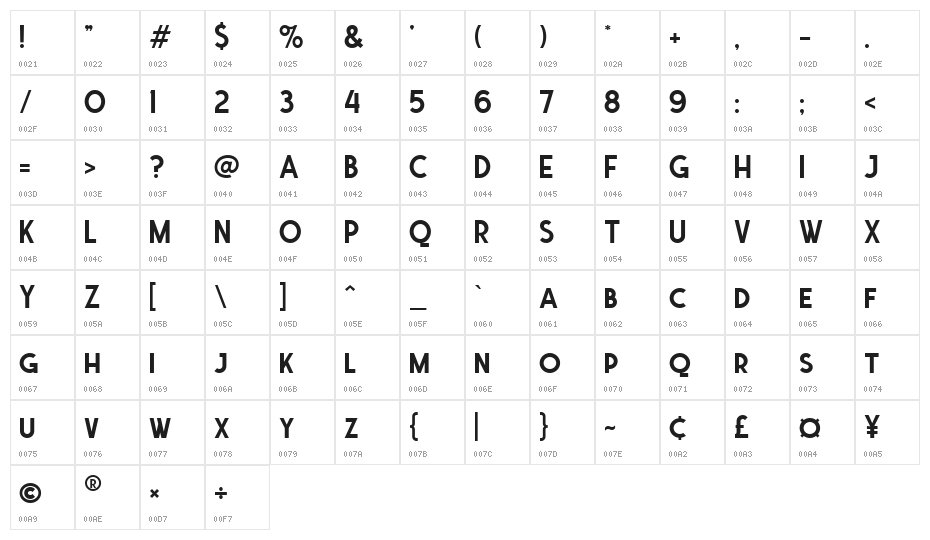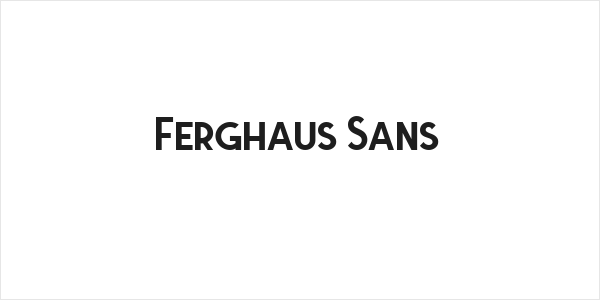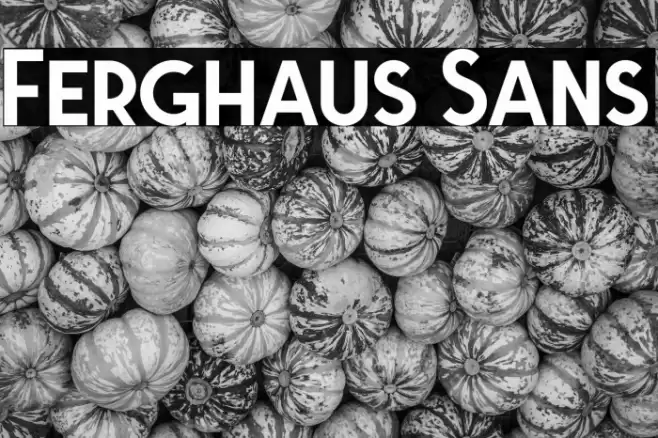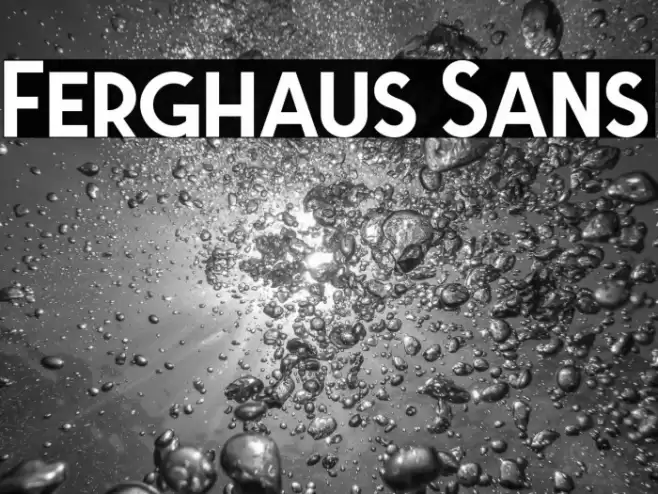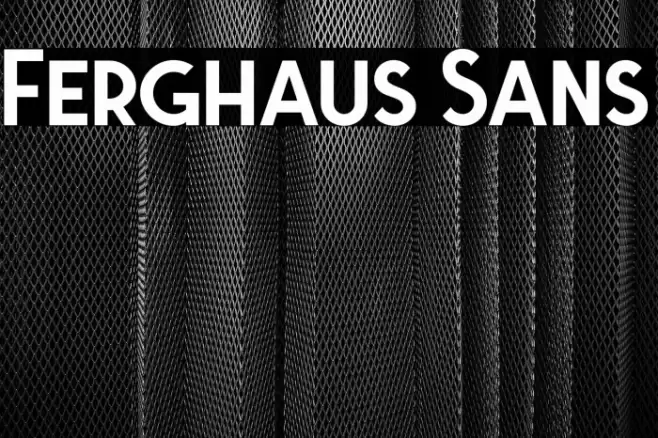
Ferghaus Sans Font
This font features a bold and modern sans-serif style with clean, geometric lines. The characters are uniform in width, providing a balanced and harmonious appearance. The uppercase letters are strong and impactful, while the lowercase letters maintain a consistent height and width, enhancing readability. The numerals are clear and distinct, making them suitable for various applications. The special characters are well-integrated, maintaining the overall aesthetic of the font. Its simplicity and clarity make it versatile for both digital and print media.